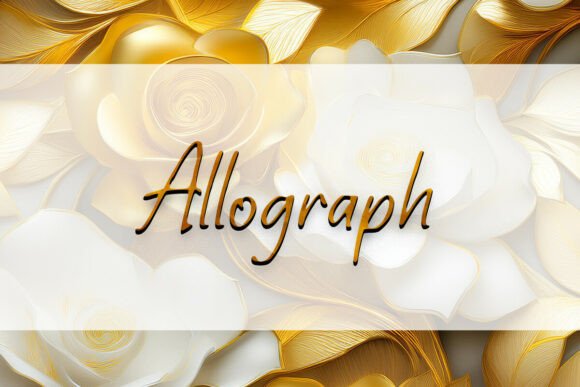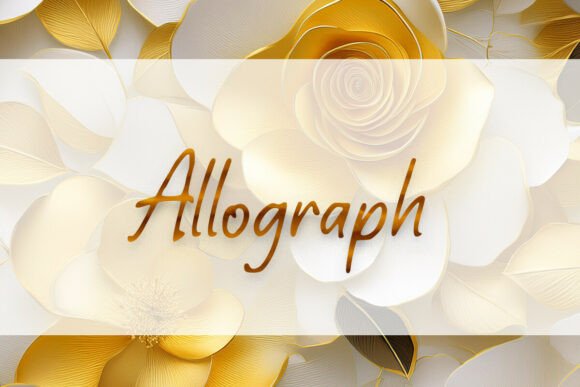
Unlock Creative Potential with Allograph Font
In the world of design, a font can make all the difference between a project that stands out and one that fades into the background. For designers and crafters looking to elevate their creative pursuits, the Allograph font is a game-changer. This meticulously crafted font is designed to enhance a wide range of projects, from t-shirt designs and magazine layouts to brand identities and digital content.
The Versatility of Allograph Font
One of the key benefits of the Allograph font is its versatility. Whether you’re working on a commercial project or a personal craft, this font can add a unique twist to your design endeavors. Its adaptability makes it an excellent choice for various applications, including:
- T-Shirt Designs: Create eye-catching apparel that turns heads with the Allograph font’s distinctive style.
- Magazine Layouts: Add a touch of elegance and sophistication to your magazine spreads.
- Brand Identity: Establish a strong brand presence with a font that exudes professionalism and creativity.
- SVG Files: Enhance your vector graphics with a font that complements their precision and clarity.
- Greeting Cards: Add a personal touch to your cards with a font that’s both stylish and legible.
- Cricut Projects: Take your cutting machine projects to the next level with a font that’s designed to make an impact.
Elevating Everyday Projects
The Allograph font is not just for large-scale commercial projects; it’s also perfect for everyday design tasks. Imagine being able to turn ordinary projects into extraordinary ones with just a few clicks. Here are some ideas to get you started:
- Posters: Create captivating posters that grab attention and leave a lasting impression.
- Social Media Posts: Engage your audience with social media posts that stand out from the crowd.
- Stickers: Design stickers that pop with a font that’s both fun and functional.
Why Designers Love Allograph Font
So, what makes the Allograph font an attractive choice for designers? Here are just a few reasons:
- Unique Flair: The Allograph font offers a distinct style that sets it apart from more traditional fonts.
- Ease of Use: This font is easy to read and works well in a variety of contexts, making it a joy to work with.
- Customization: With the Allograph font, you have the flexibility to experiment with different styles and effects to match your brand’s voice.
Getting Started with Allograph Font
- Experiment with Different Sizes: Find the perfect size to match your project’s needs.
- Play with Colors: Try out different color schemes to see what works best with the Allograph font.
- Combine with Other Fonts: Don’t be afraid to pair the Allograph font with other fonts to create a unique look.
In conclusion, the Allograph font is a powerful tool for designers and crafters looking to elevate their creative pursuits. Its versatility, unique flair, and ease of use make it an excellent choice for a wide range of projects. Whether you’re working on a commercial project or a personal craft, this font is sure to make a lasting impression.